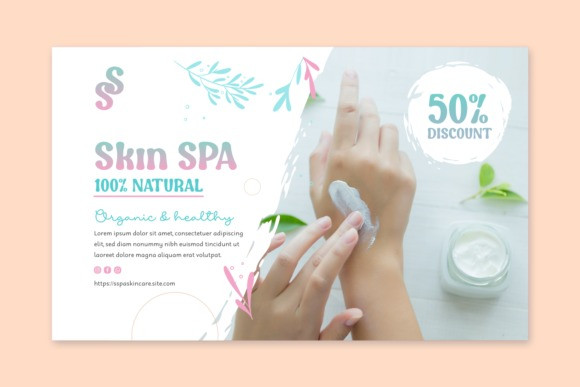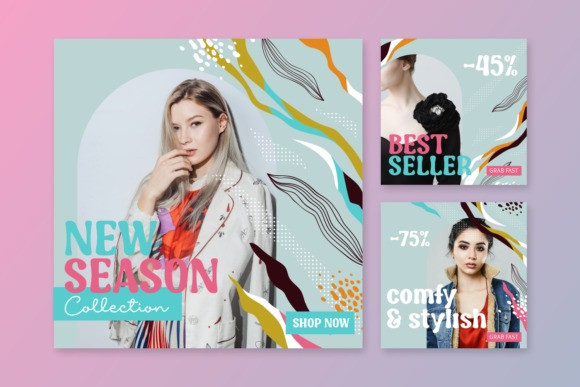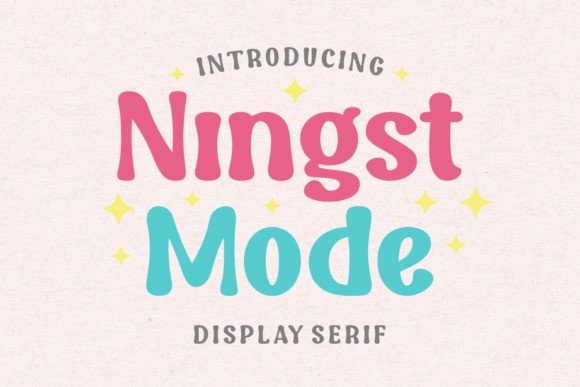
Ningst Mode Font
Ningst Mode Display Font is a cool, friendly and thick lettered display font. Whether you’re using it for crafts, digital design, presentations, or making greeting cards, this font has the potential to become your favorite go-to font, no matter the occasion!